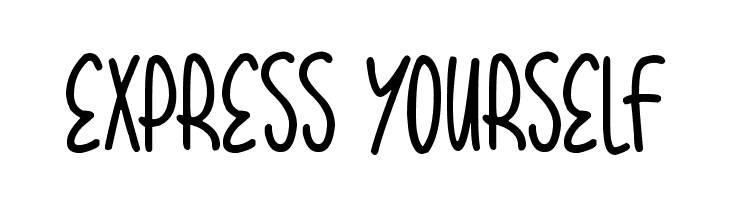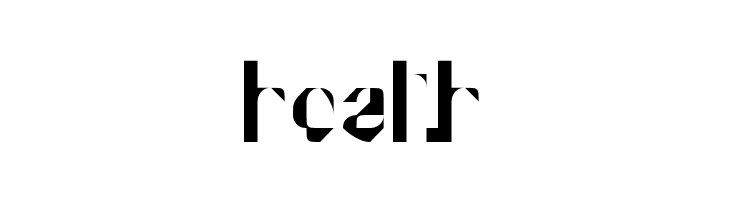
A modern, geometric font with rounded edges and a clean, uniform appearance.
A whimsical, angel-themed decorative font with playful characters.
A modern, bold, and italicized font with a sleek and dynamic design.
A playful, hand-drawn font with a whimsical and artistic style.
A bold, geometric font with striking contrast and modern appeal.
A dynamic handwritten font with fluid strokes and a casual, expressive style.
A modern, light, semi-condensed sans-serif font with clean, geometric lines.
A playful, handwritten font with a casual and friendly style.
A bold, eclectic font with varying patterns and textures, offering a chaotic yet captivating style.
A distressed, jagged font with a raw, edgy appearance.